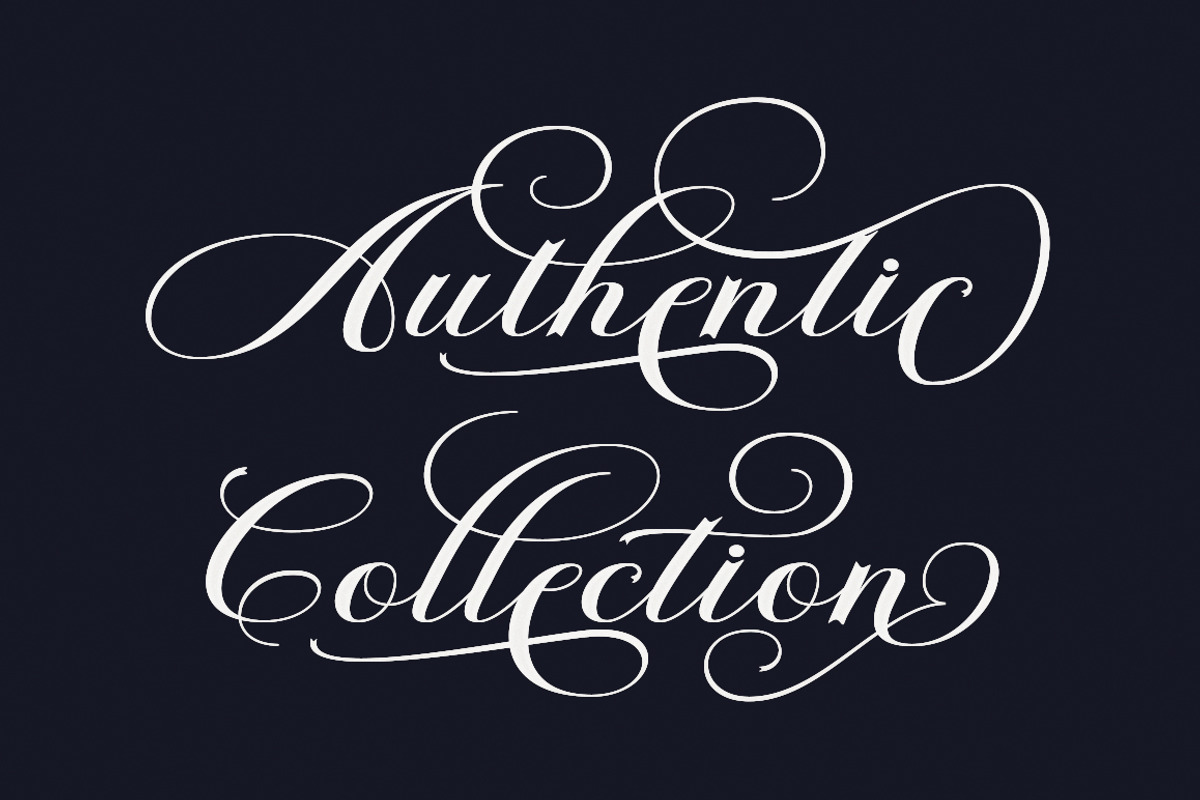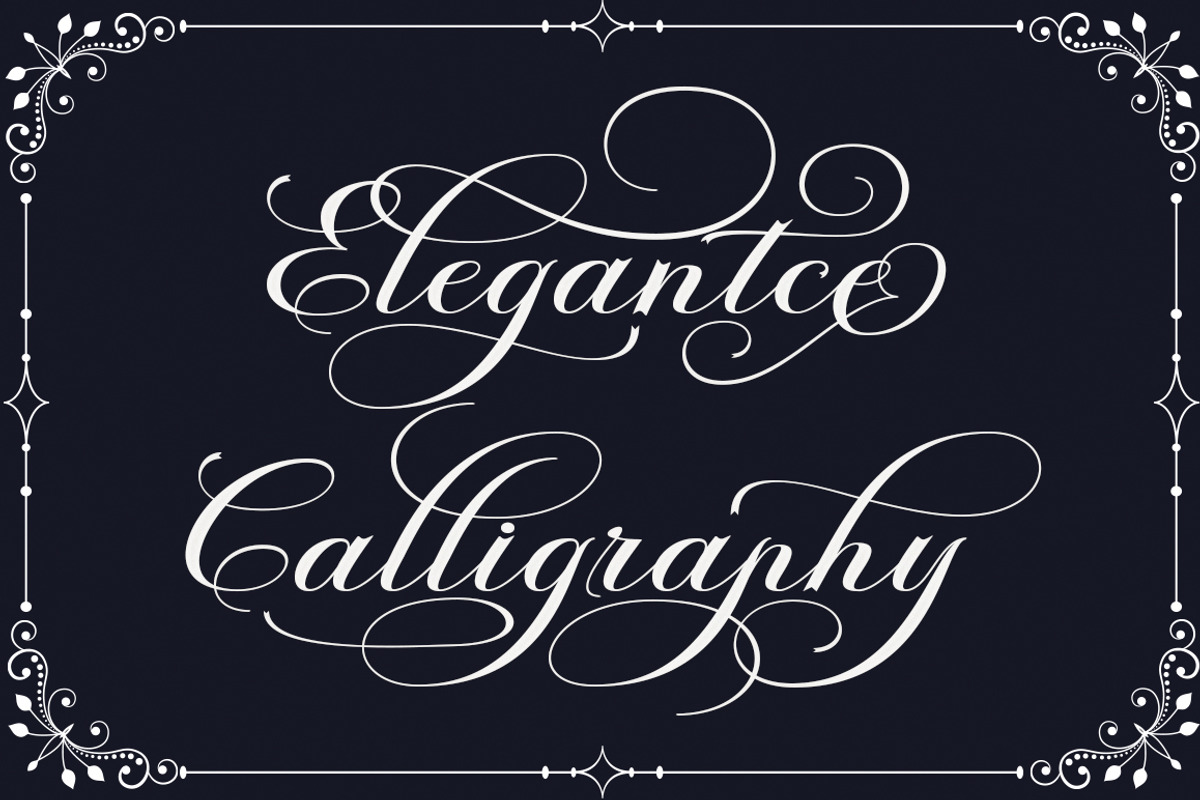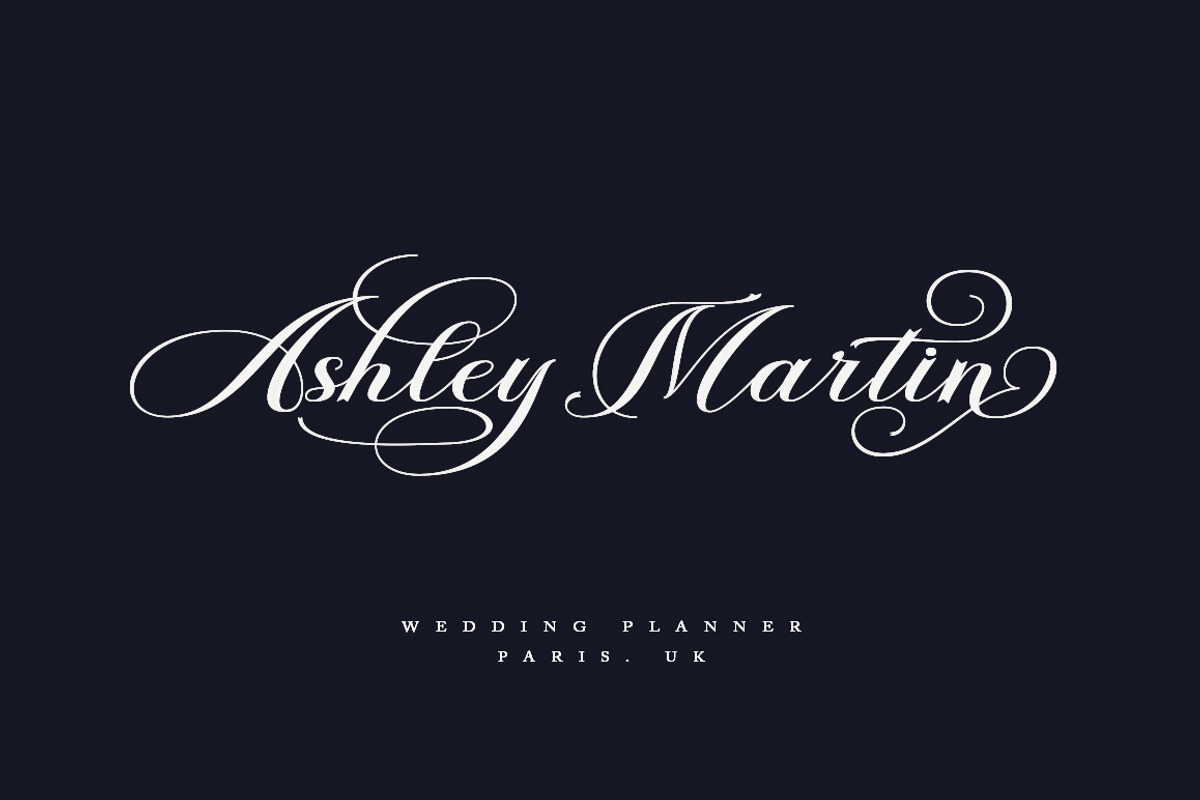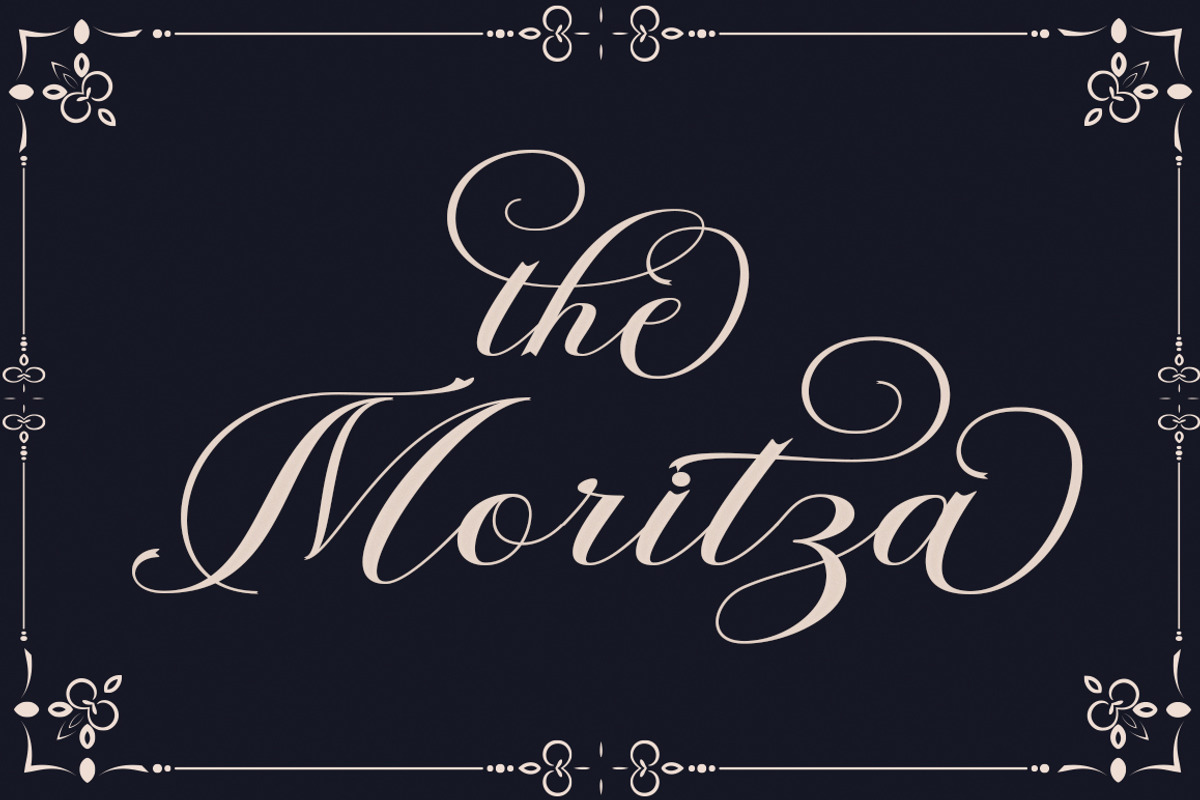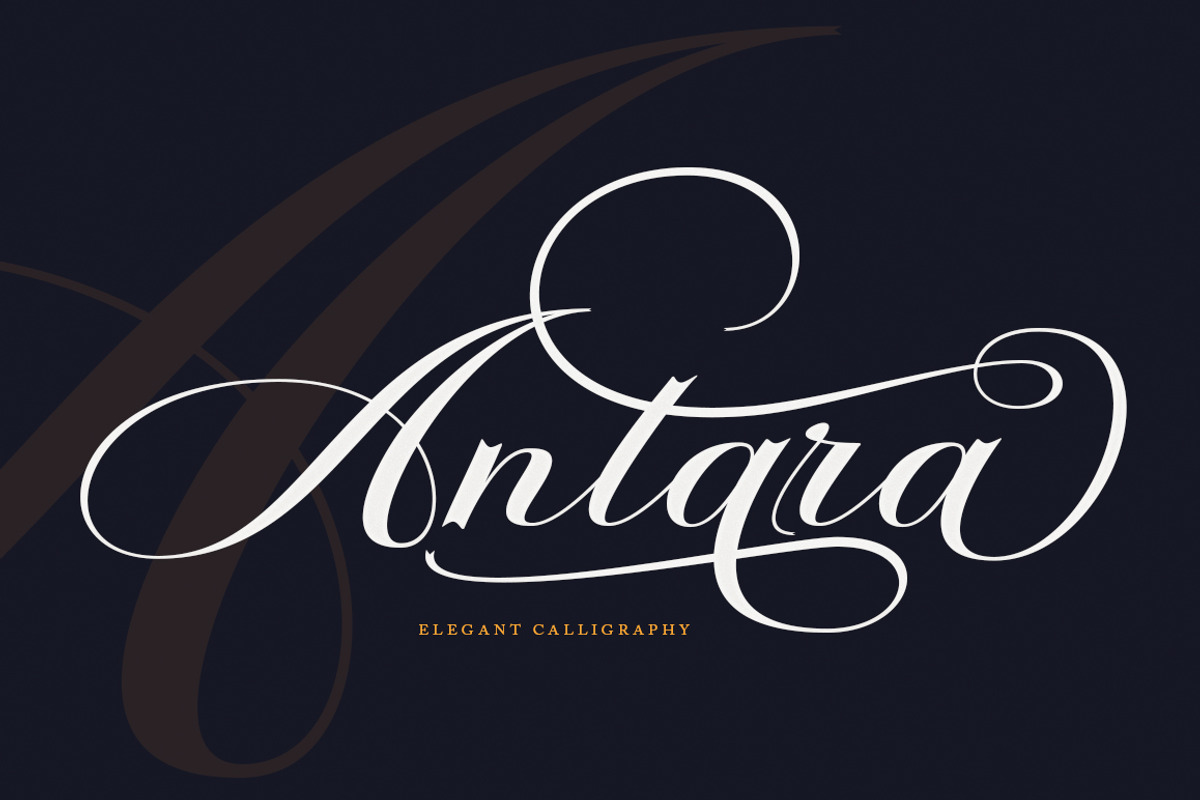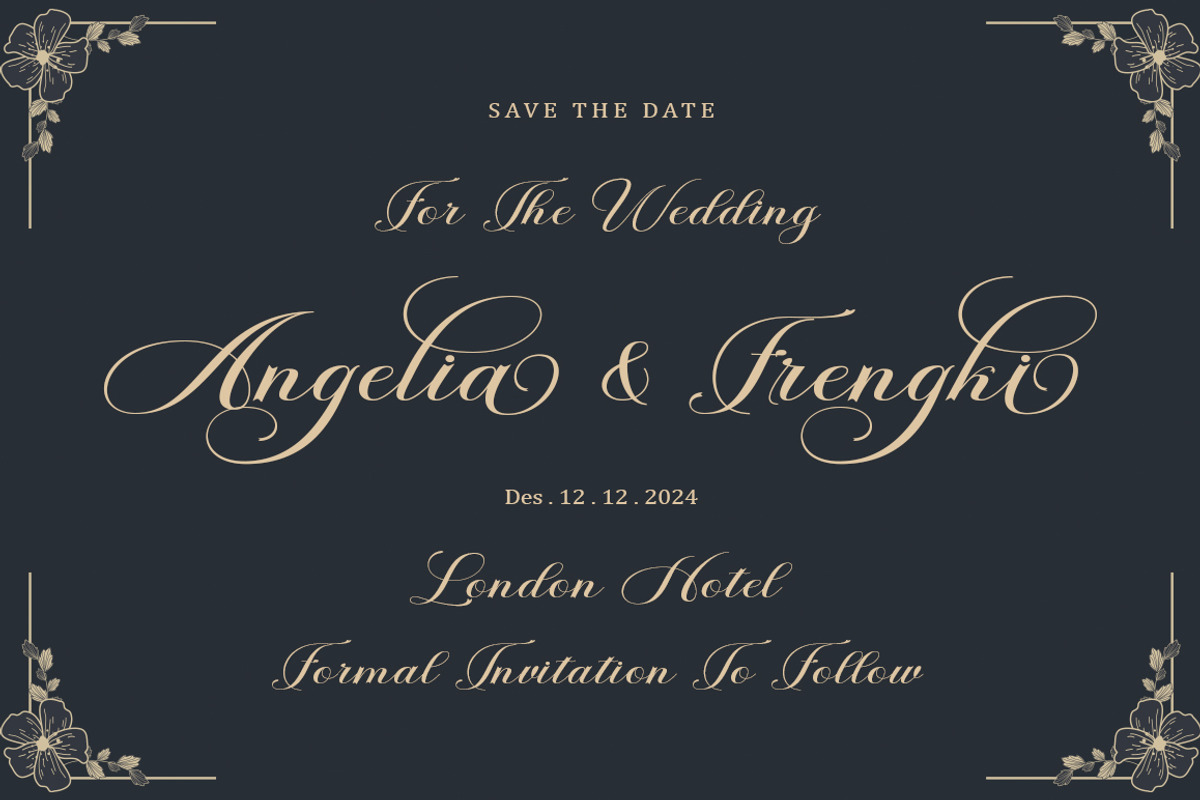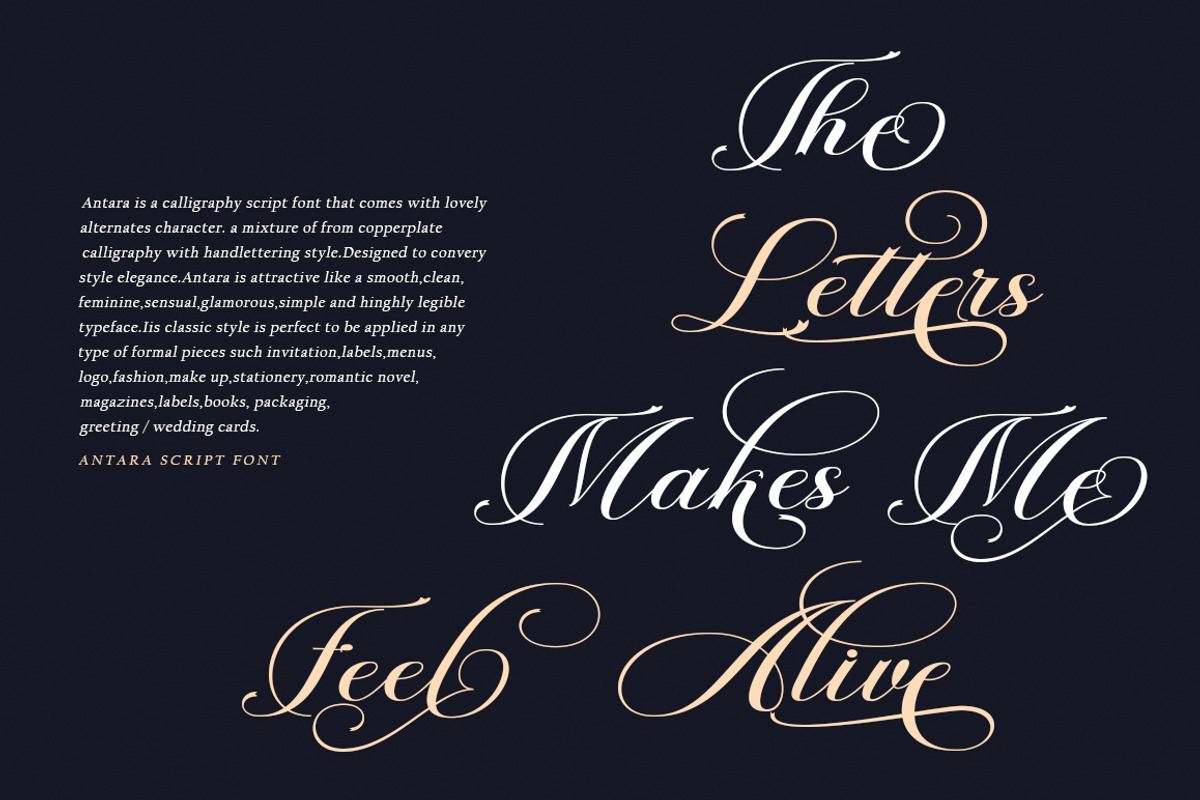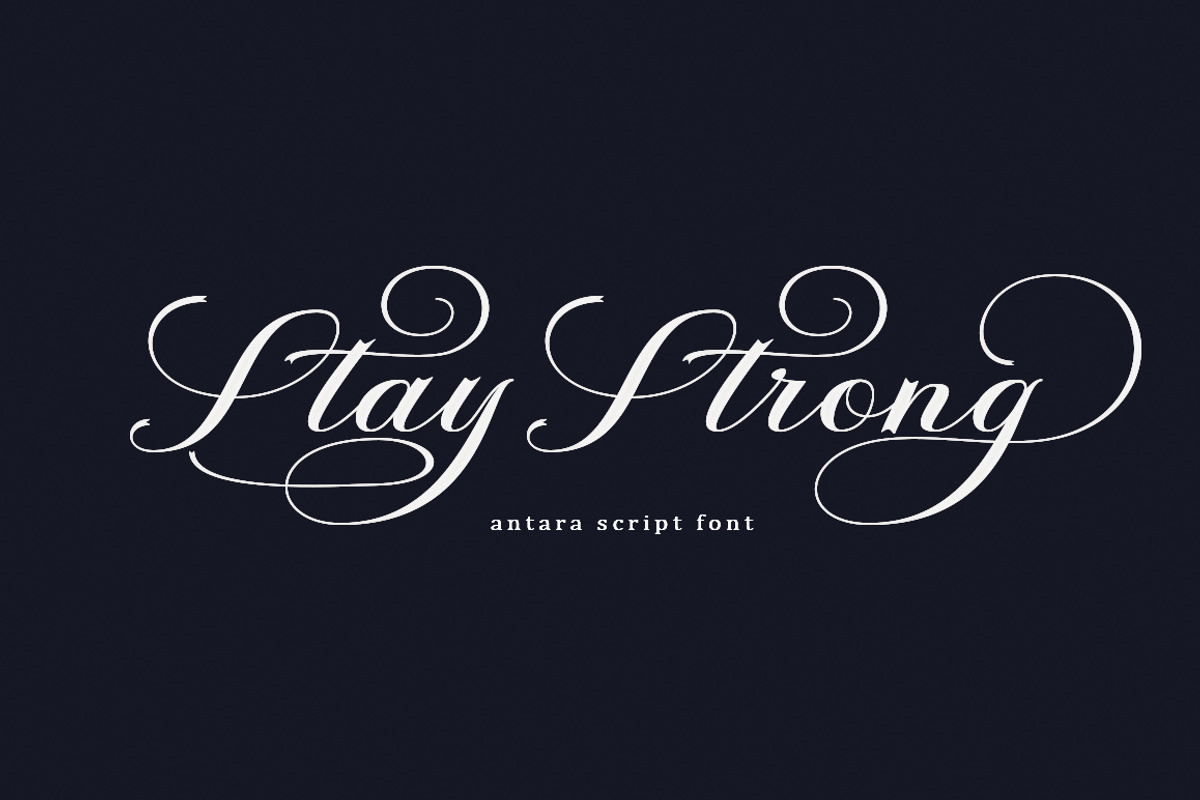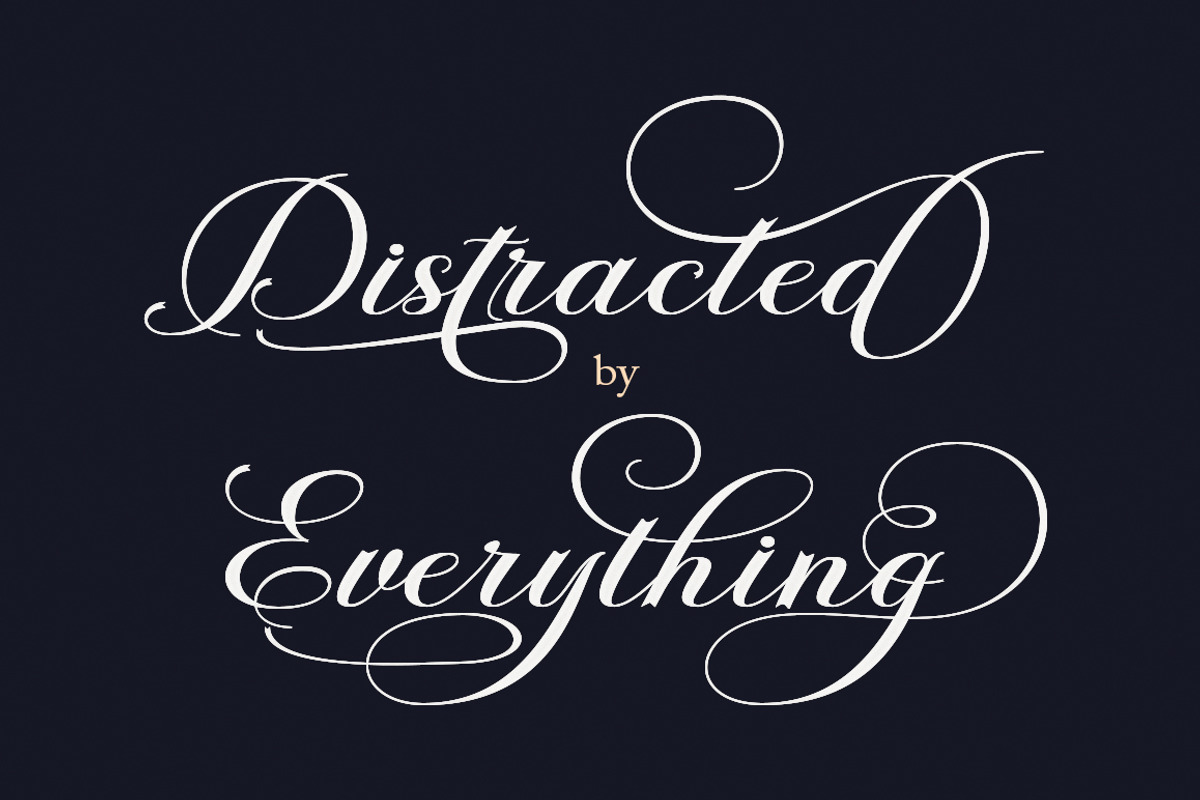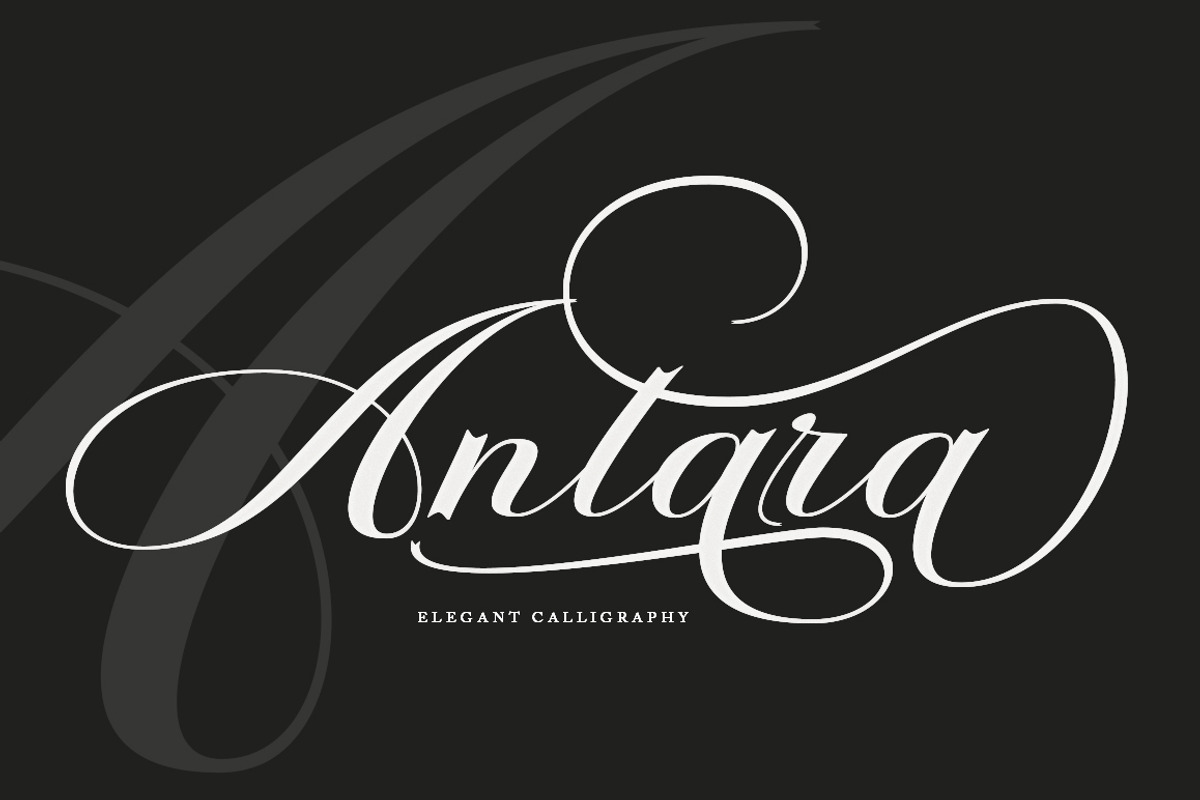
Antara Script
Antara script is a calligraphy font that comes with very beautiful changing characters, a type of classic decorative copper script with a modern touch, designed with high detail to present an elegant style. Antara Script is attractive because the typeface is smooth, clean, feminine, sensual, glamorous, simple and very easy to read, because there are many luxurious letter connections. I also offer a number of viable style alternatives for many letters. The classic style is very suitable to be applied in various formal forms such as invitations, labels, restaurant menus, logos, fashion, make up, stationery, novels, magazines, books, greeting/wedding cards, packaging, labels or all kinds of advertising purposes. .
Antara Scripts has 420+ alternate glyphs and characters, including multiple language support. Featuring OpenType with alternative styles and elegant binding. The OpenType feature does not work automatically, but you can access it manually and for best results your creativity is needed in combining these Glyph variations.